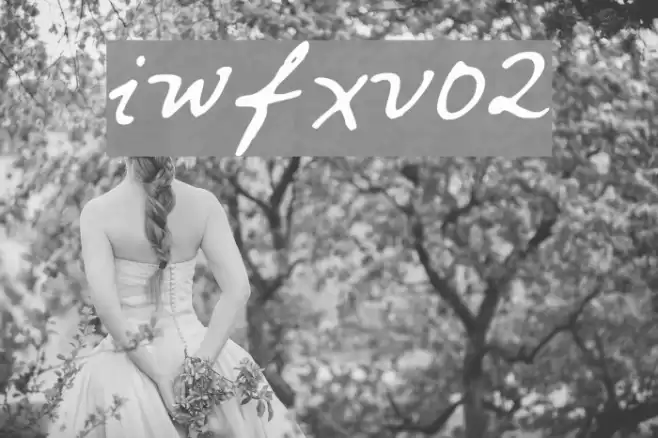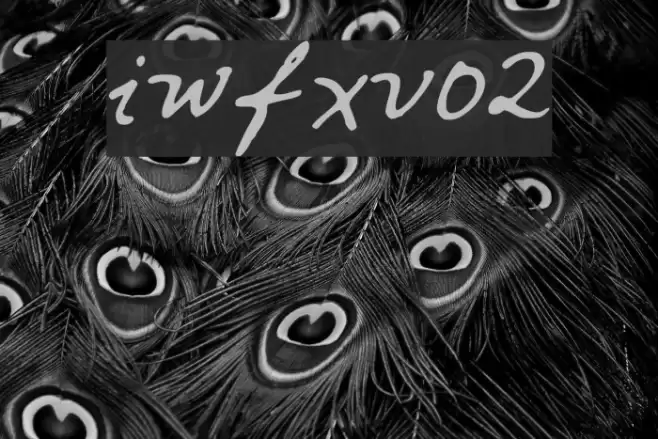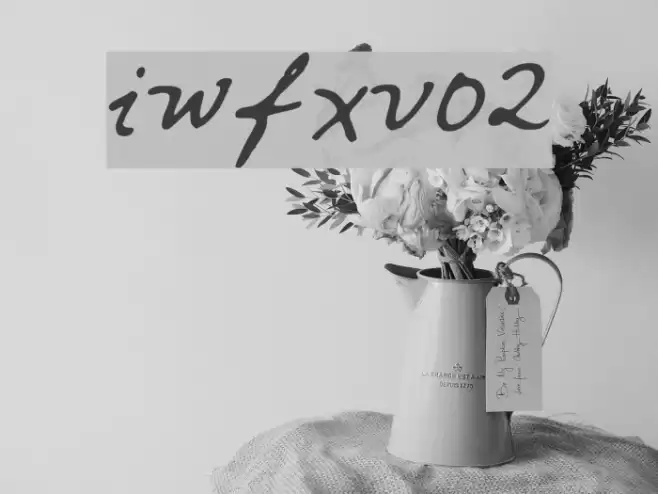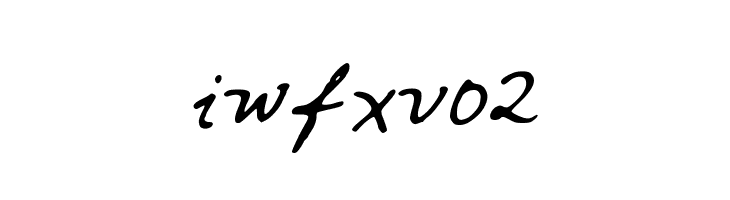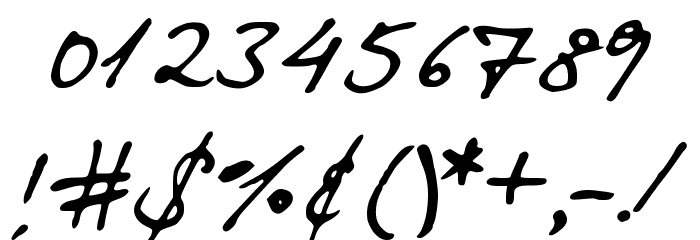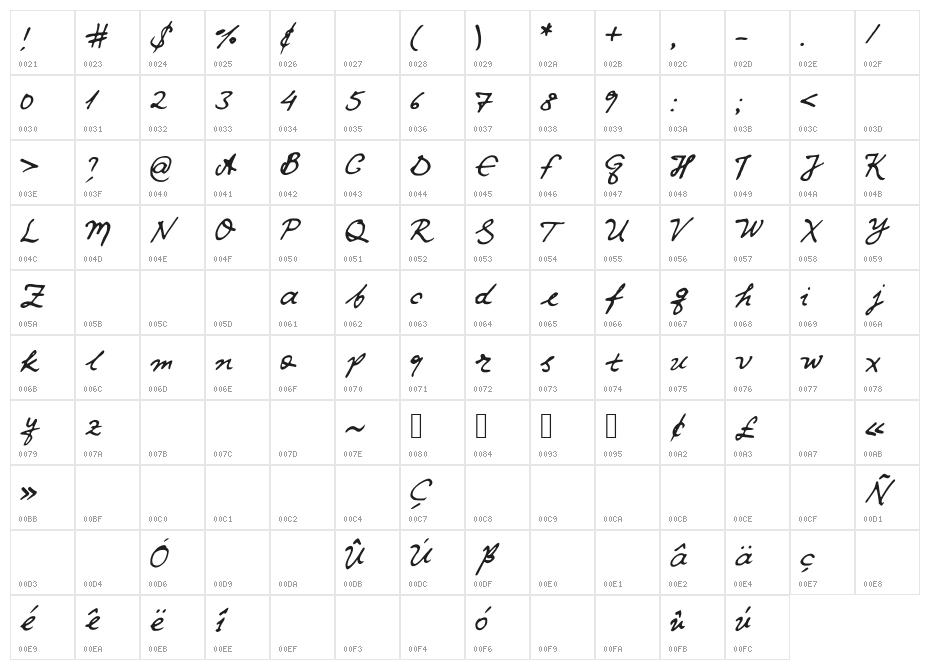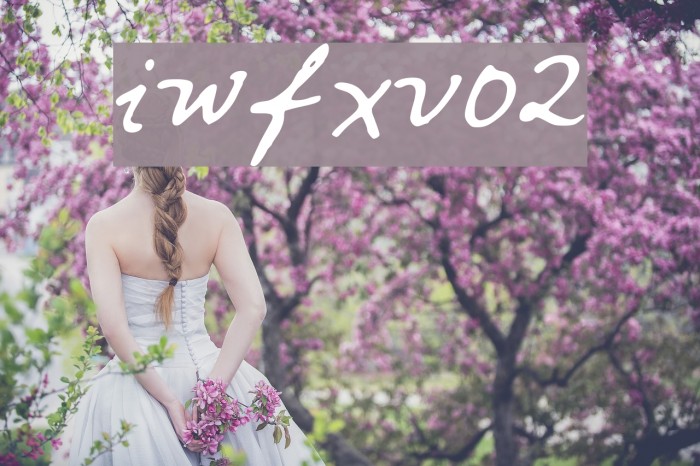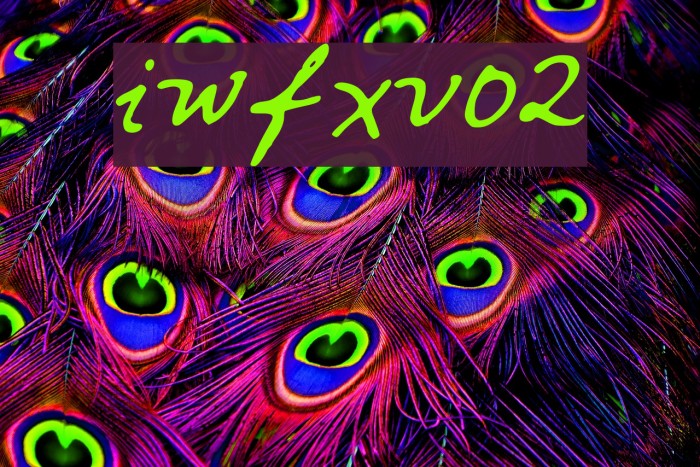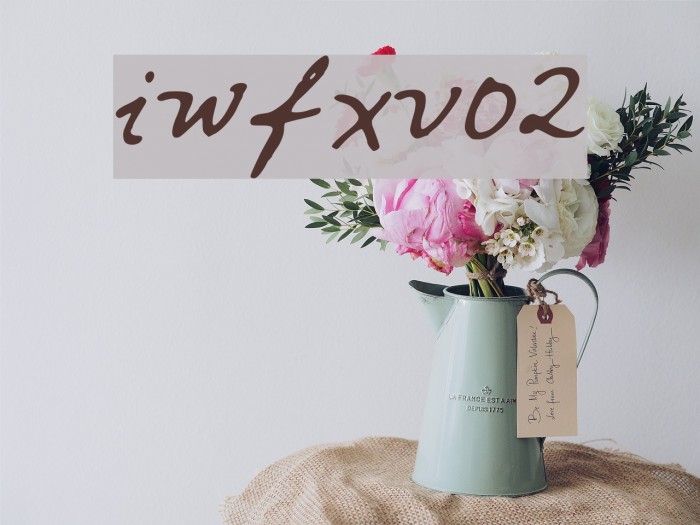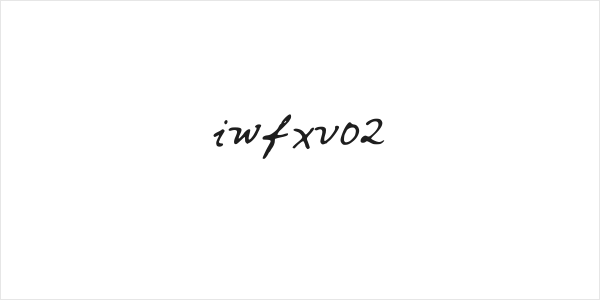
iwfxv02 Font
iwfxv02 Description
This font exudes a handwritten, cursive style with a fluid and dynamic appearance. The characters are connected, creating a seamless flow that mimics natural handwriting. The strokes are varied, with some letters featuring thicker downstrokes and thinner upstrokes, adding to the organic feel. The uppercase letters maintain a consistent height, while the lowercase letters have a slight slant, enhancing the casual and personal touch. The numerals and special characters follow the same cursive style, ensuring uniformity across all glyphs. This font is ideal for projects that require a personal, informal, or artistic touch.
A cursive, handwritten font with fluid, connected strokes from Uncategorized fonts.
- Proposed Projects: Ideal for invitations, greeting cards, personal branding, and artistic projects.
- Overall Style: Casual, Artistic
- Use Case: Logos, Invitations, Artistic projects